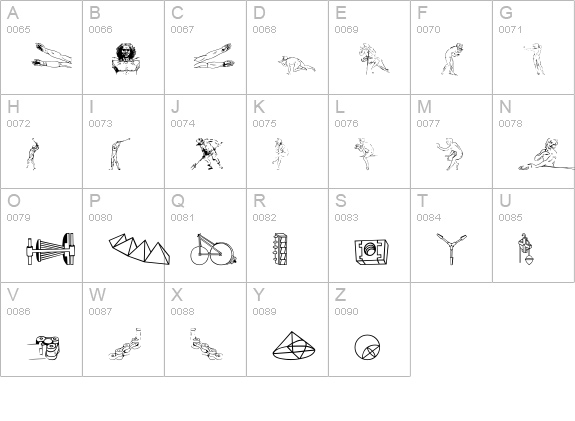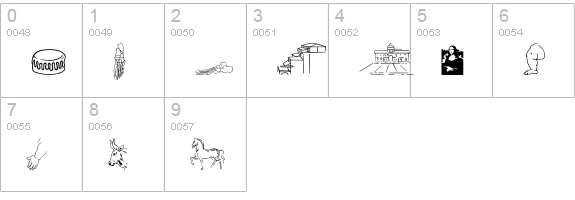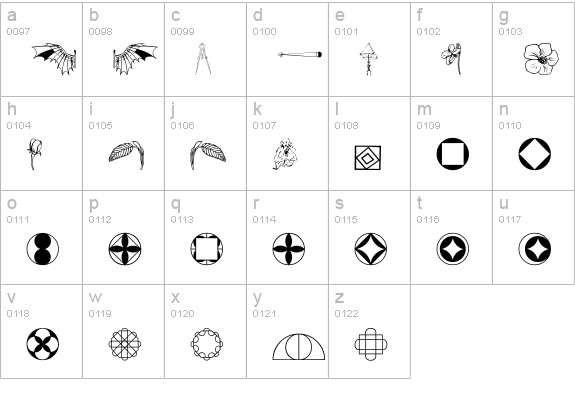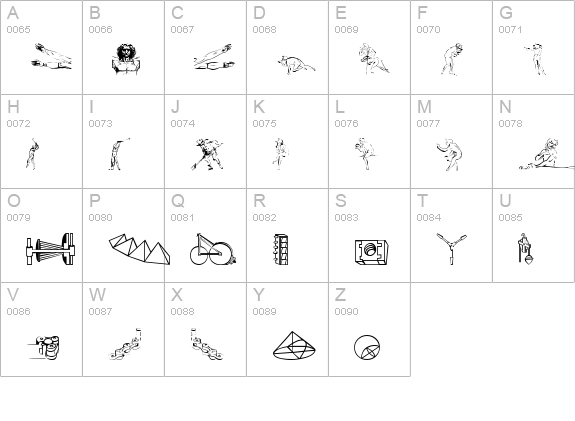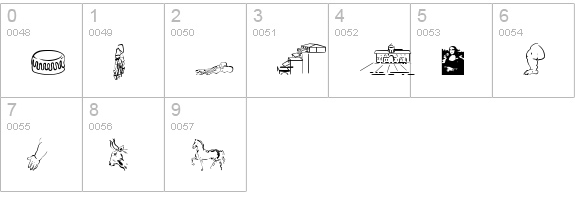
P22 DaVinci Extras Font Details
The P22 DaVinci Extras font is a captivating and versatile typeface that adds a touch of elegance and sophistication to any design project. Inspired by the genius of Leonardo da Vinci, this font showcases intricate and meticulously crafted symbols and illustrations that are reminiscent of the Renaissance period. With its wide range of glyphs and ornaments, P22 DaVinci Extras offers a plethora of design possibilities. From ornate borders and decorative frames to beautifully crafted flourishes and embellishments, this font is perfect for adding a touch of artistic flair to invitations, book covers, packaging, and more. What makes the P22 DaVinci Extras font even more remarkable is that it is freely available to download at FontsMarket.com. This means that designers, artists, and enthusiasts can easily access this stunning font and explore its endless creative potential without any cost. Whether you're a professional designer or a hobbyist, this font allows you to bring your artistic visions to life without breaking the bank. In addition to its aesthetic appeal, P22 DaVinci Extras is also highly versatile in terms of its application. Its clean and legible design ensures that it can be used effectively in both print and digital mediums. From logos and branding materials to website headers and social media graphics, this font effortlessly enhances the visual impact of any project. Immerse yourself in the world of Leonardo da Vinci with the P22 DaVinci Extras font. Its exquisite details and timeless elegance will transport you to a bygone era while providing you with the creative tools you need to make your designs truly extraordinary. Don't miss the opportunity to download this font for free at FontsMarket.com and unlock a world of artistic possibilities.